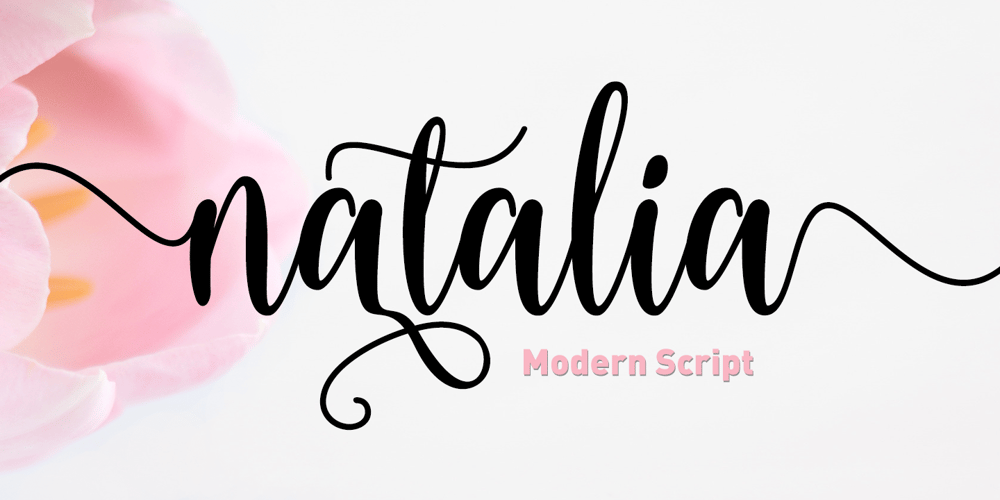
Natalia Script Font Family was designed by Ambia and published by Areatype. Natalia Script contains 1 styles and family package options. Natalia Script is a calligraphic manuscript modern, dynamic and pretty with swashes. Can be used for many purposes. such as title, signature, logo, wedding invitations, letterhead, signage, labels, newsletters, posters, badges, etc.Natalia Script features Open type, including the initial and terminal letters, ligatures and International support for most Western languages included.Files included:Natalia Script (Otf)To activate OpenType Stylistic alternative, you need a program that supports OpenType features such as Adobe Illustrator CS, Adobe Indesign and CorelDraw X6-X7, Microsoft Word 2010 or later.How to access all of the alternate characters, using the Windows Character Map to Photoshop:https://www.youtube.com/watch?v=Go9vacoYmBwHow to access all of the alternate character using Adobe Illustrator:http://youtu.be/iptSFA7feQ0nnNatalia Script PUA encoded with Unicode, which allows full access to all the extra characters without having to design special software. Mac users can use Font Book, and Windows users can use the Character Map to view and copy one additional character to paste into your text editor / favorite applications.Thank you very much for looking and please tell me if you have questions.